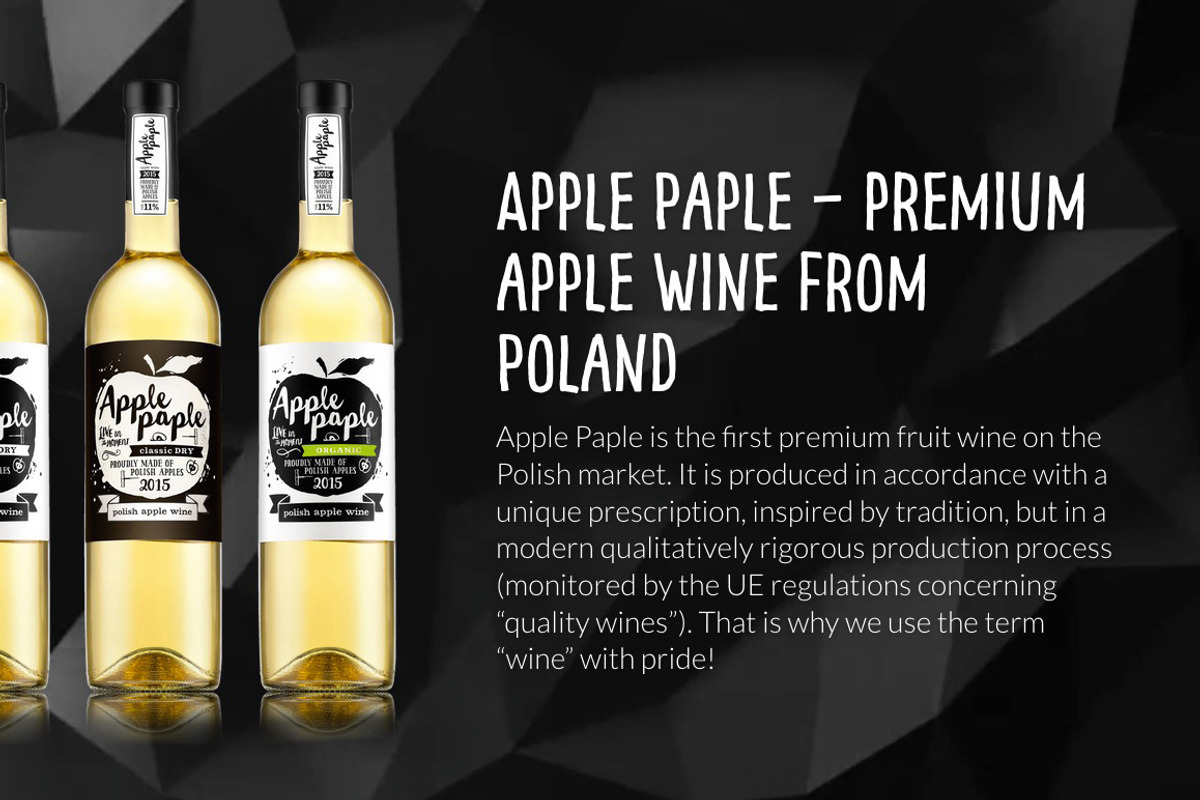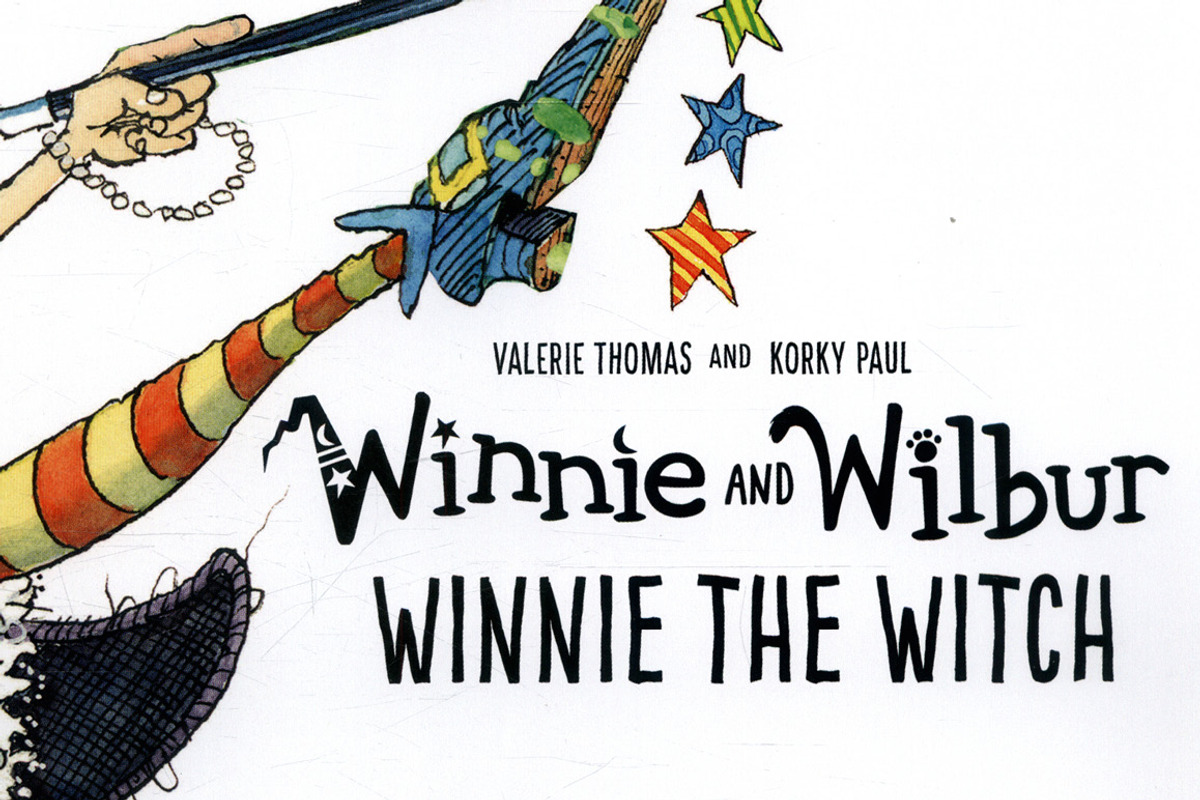
Hand Drawn Pinto NO_01 for Packaging
Written as drawn – Pinto NO_01 lets you transform type into an exciting and beautiful piece of work. The irregular, hand-lettered look adds a real human touch to things and comes along with a lot of loving details.
The extended character set includes uppercase letters in two automatically alternating versions (activate OpenType “Contextual Alternates”). It supports Central and Eastern European as well as Western European Languages.
Pinto NO_01 is tailored for food-, magazine-, book- and packaging-design.